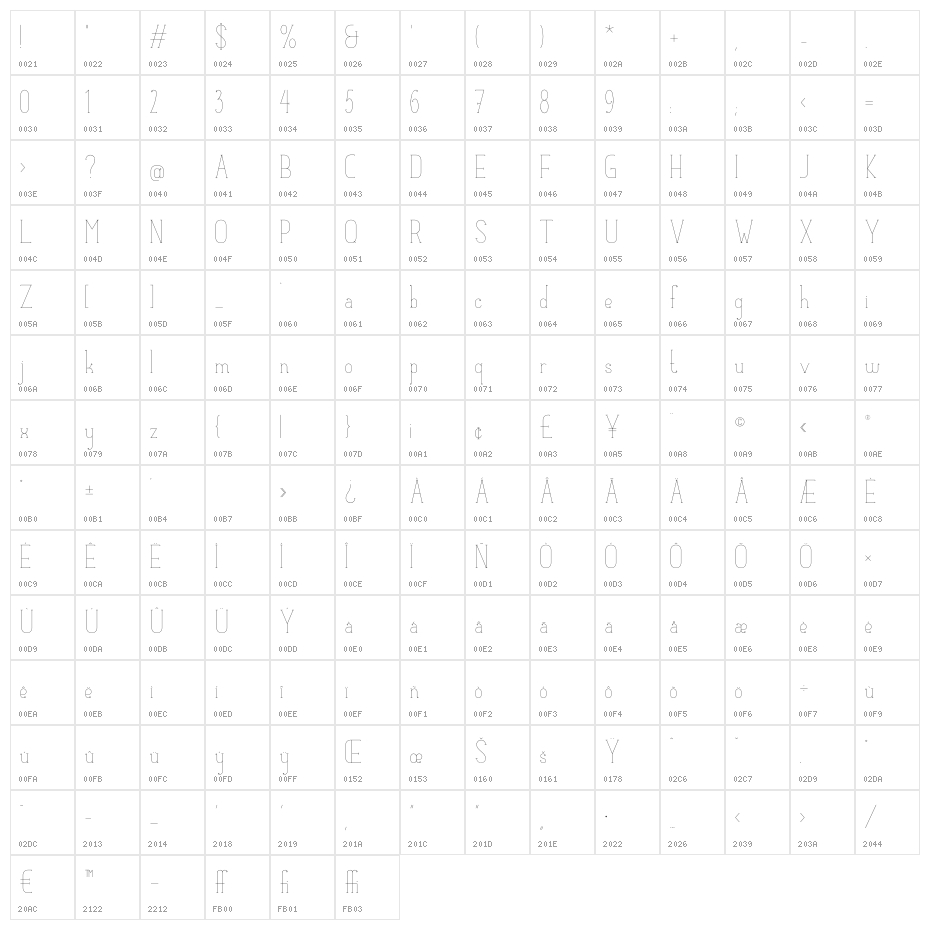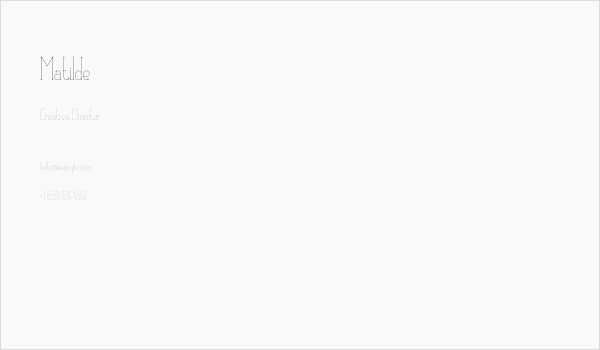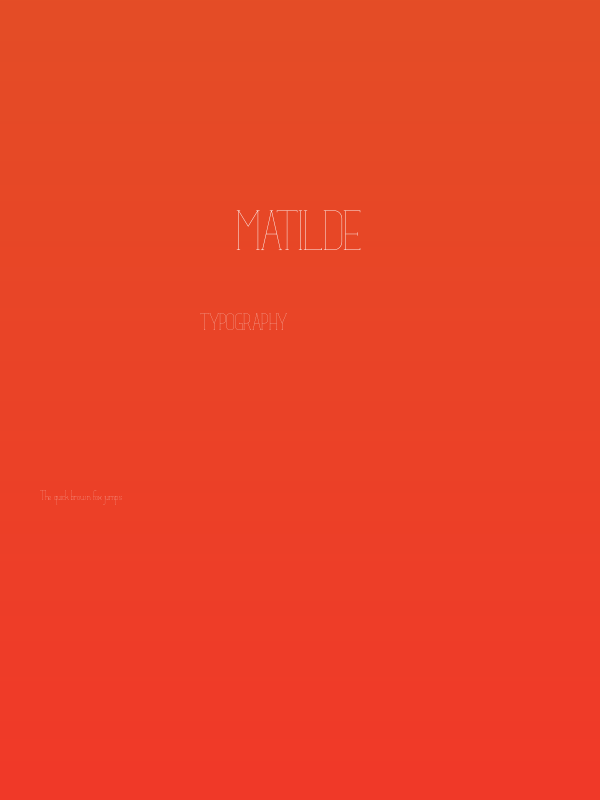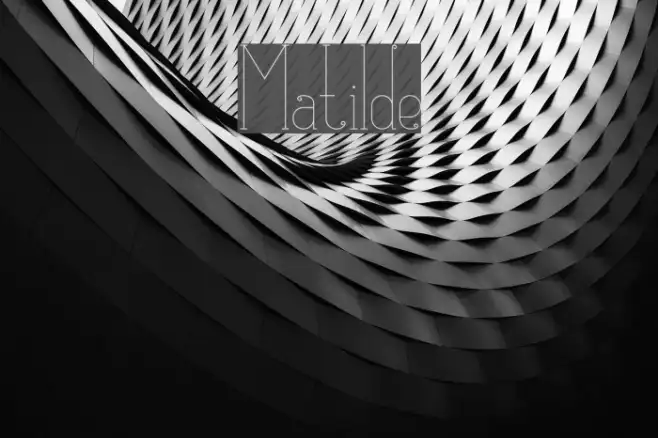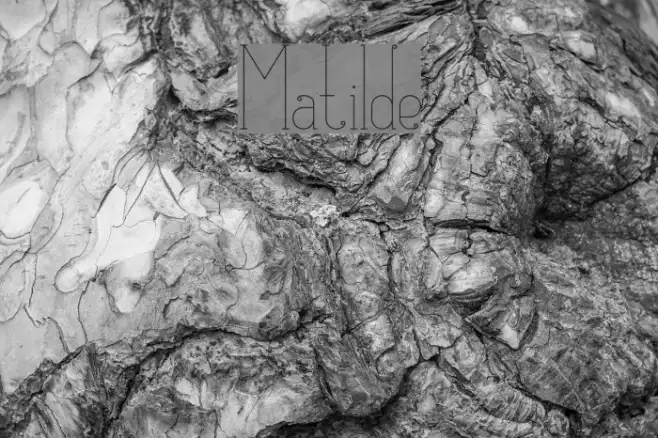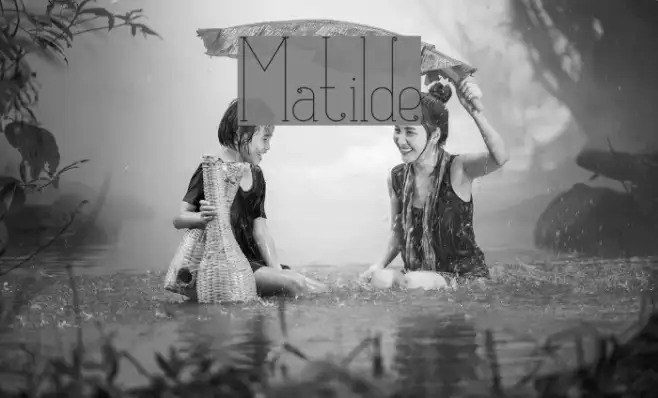
Matilde Font
Matilde Description
This font features a delicate and elegant design with thin, elongated strokes that give it a refined and sophisticated appearance. The characters are tall and narrow, with a consistent line weight that adds to its minimalist aesthetic. The uppercase letters are particularly striking, with a modern and stylish look. The lowercase letters maintain the same thinness, creating a cohesive and harmonious feel across the entire typeface. The numerals and special characters are designed with the same attention to detail, ensuring a uniform appearance throughout. This font is perfect for projects that require a touch of elegance and modernity.
| Use Case | Logos, Headlines, Invitations |
| Proposed Projects | Ideal for wedding invitations, luxury branding, high-end fashion magazines, and elegant website headers. |